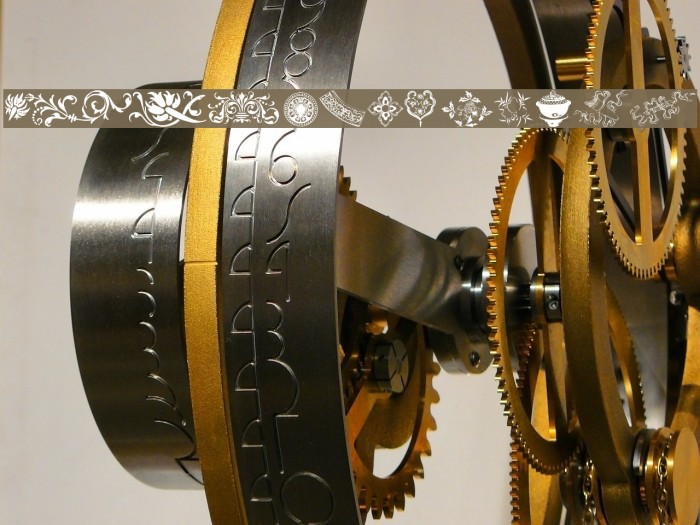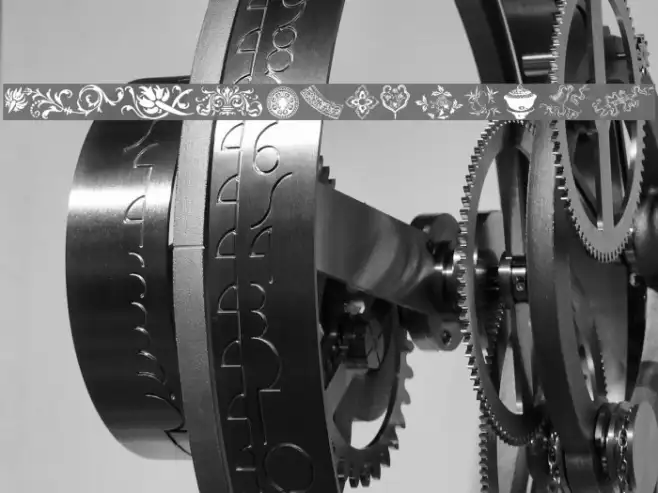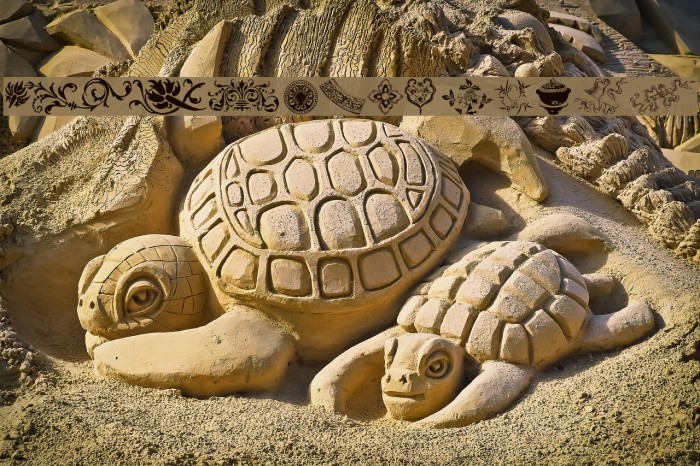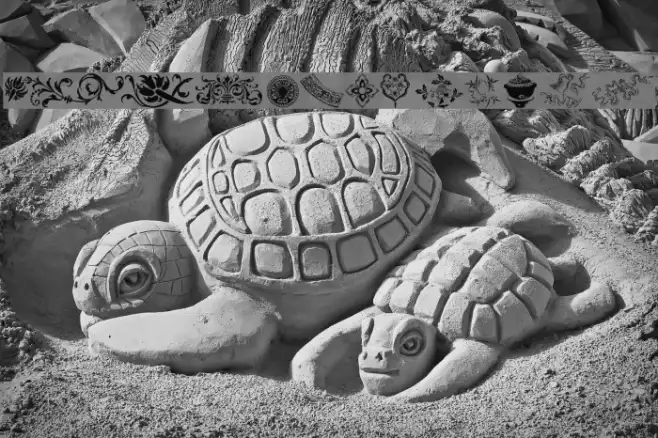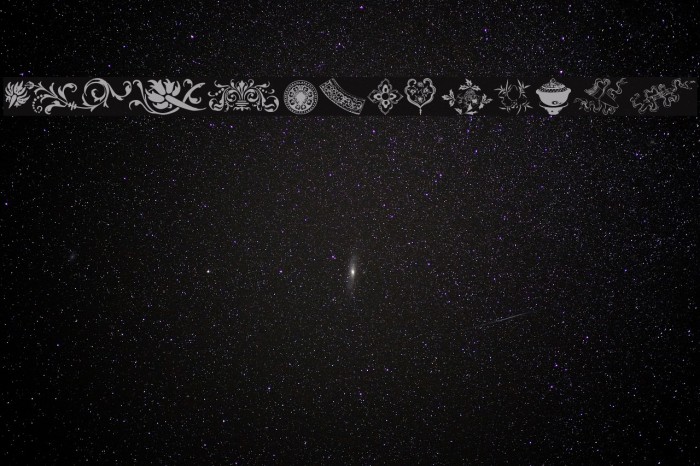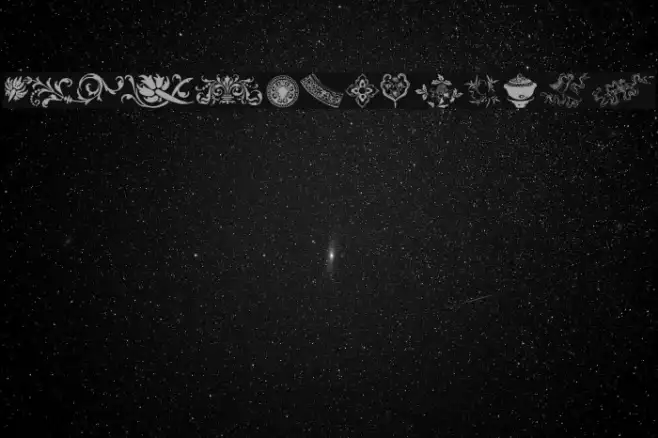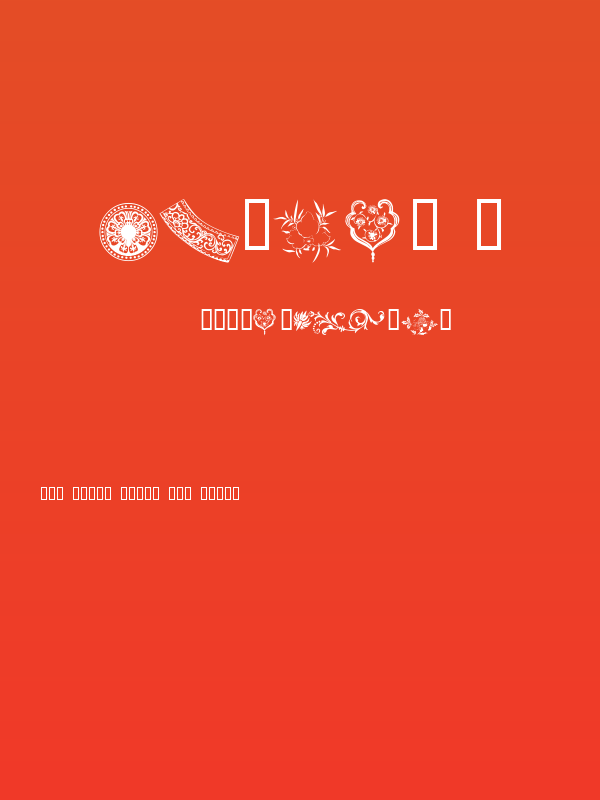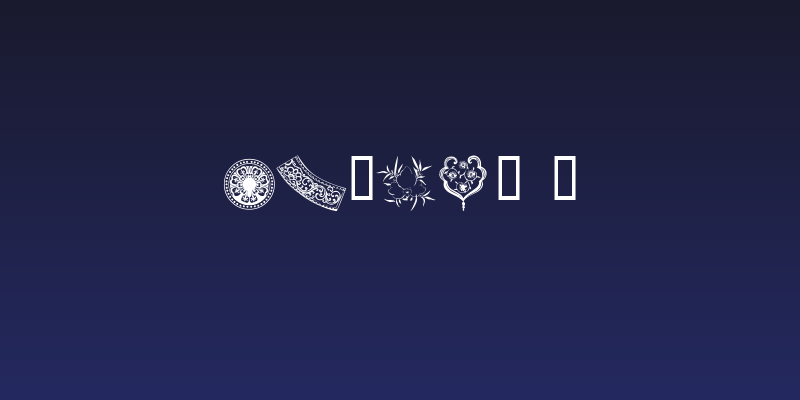
Design 7 Font
Design 7 Description
This is not a valid font. The image contains decorative elements and symbols that do not form a coherent typeface. Each character appears as a unique ornamental design, lacking uniformity and consistency required for a functional font. These elements are more suited for decorative purposes rather than typographic use.
| Use Case | Graphic design, Art projects |
| Proposed Projects | These decorative elements could be used for ornamental borders, graphic design embellishments, or artistic projects requiring intricate designs. |